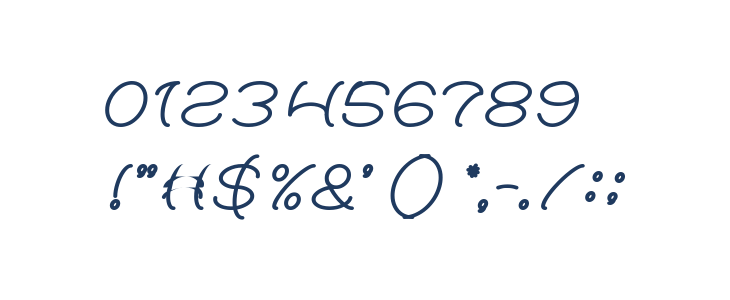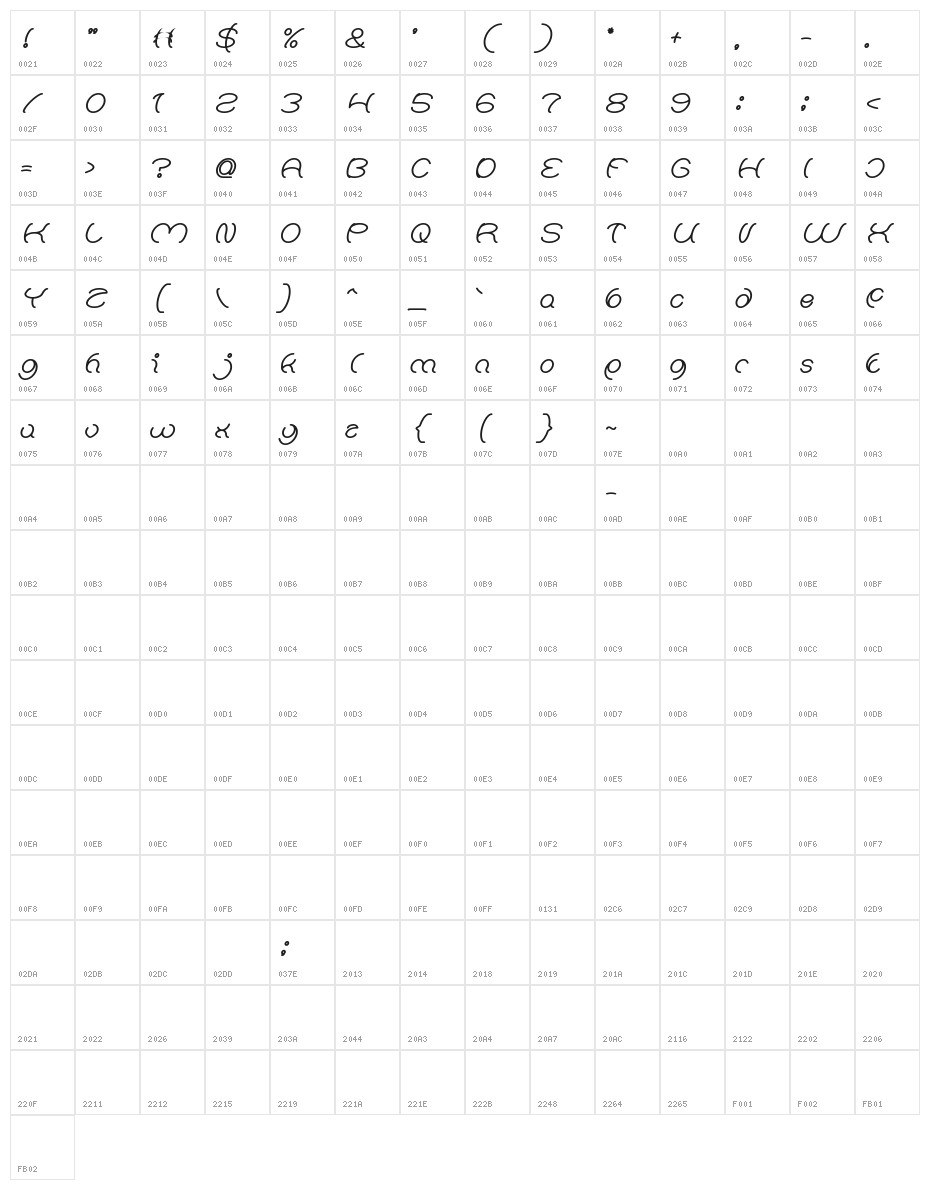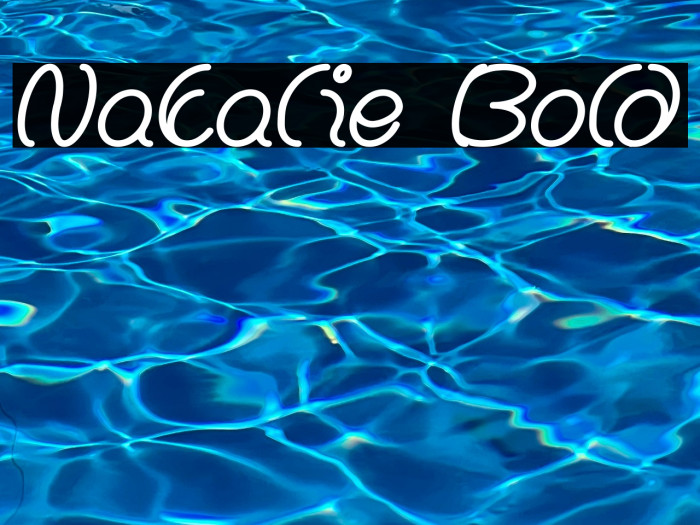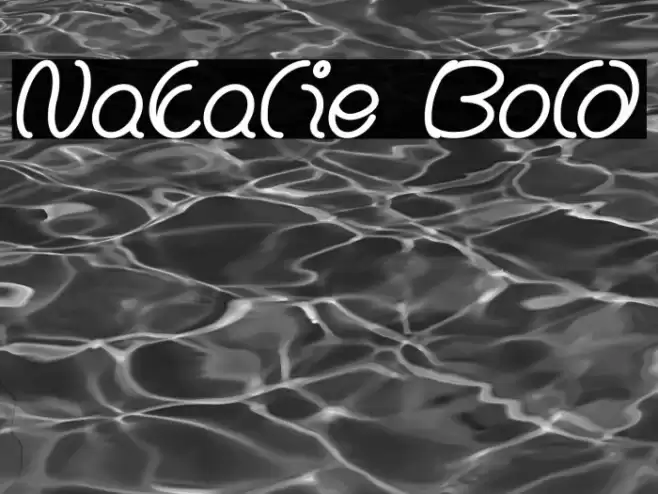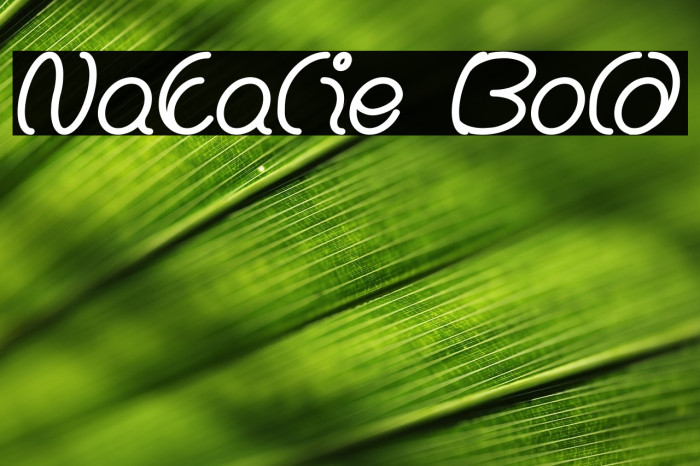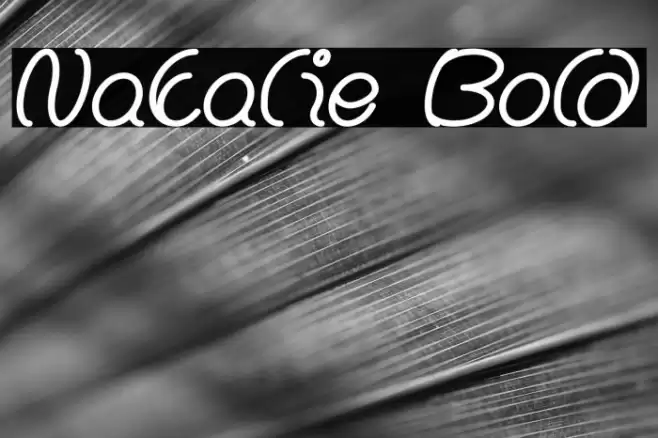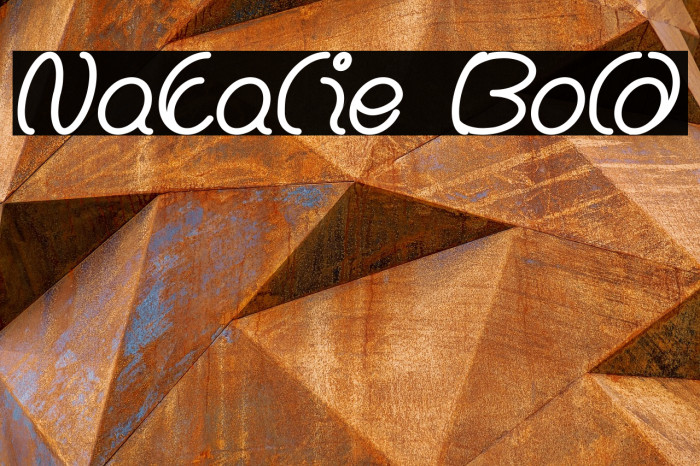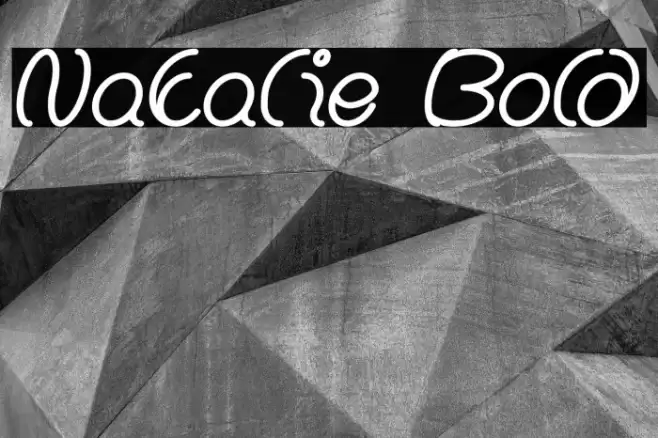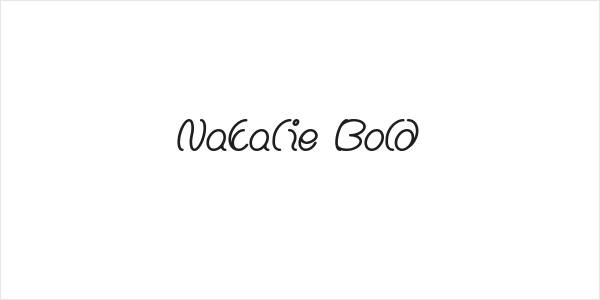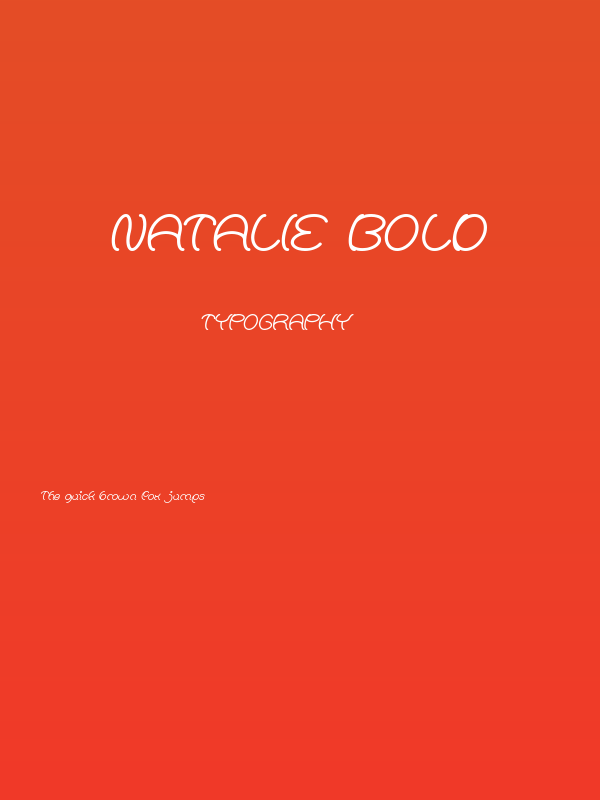
Natalie Bold Font
Natalie Bold Description
This font features a playful and whimsical style, characterized by its rounded and flowing letterforms. The strokes are consistent in thickness, giving it a uniform appearance. The characters have a unique, almost hand-drawn quality, with slight curls and loops that add to its charm. The uppercase letters are bold and prominent, while the lowercase letters maintain a cohesive look with their slightly exaggerated curves. The numbers and special characters follow the same design principles, ensuring a harmonious overall look. This font is ideal for projects that require a touch of creativity and fun.